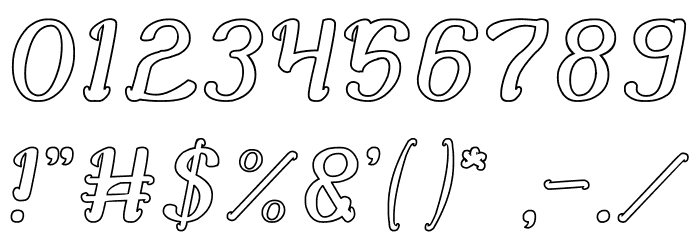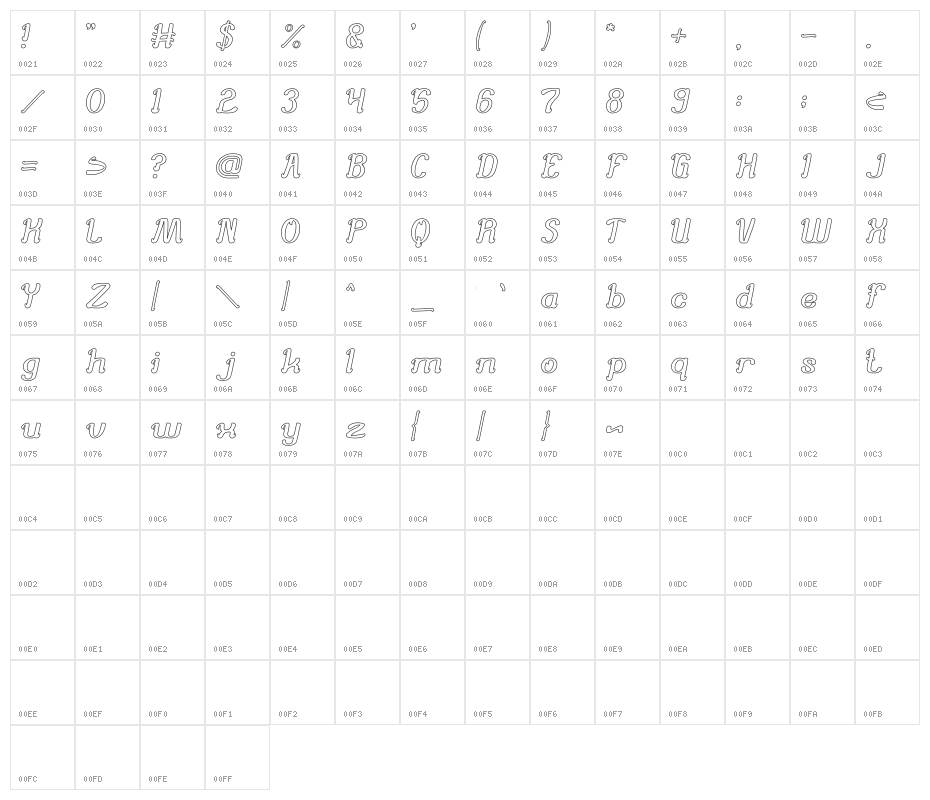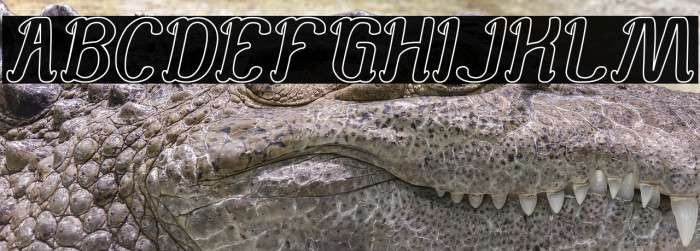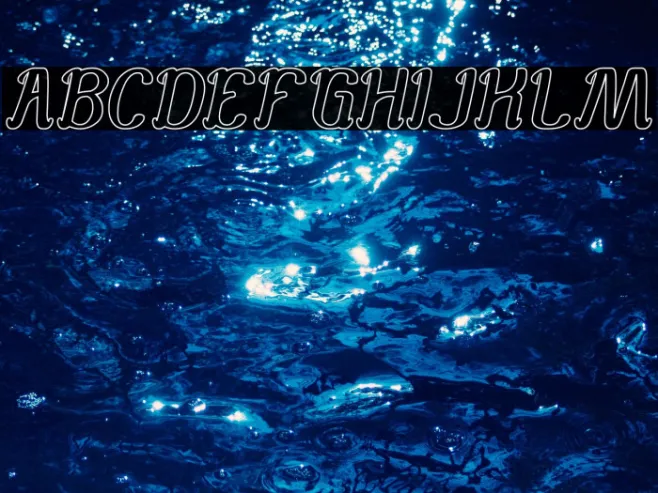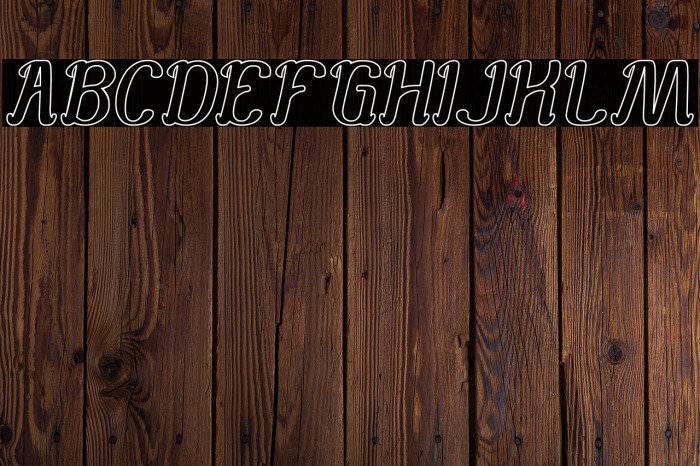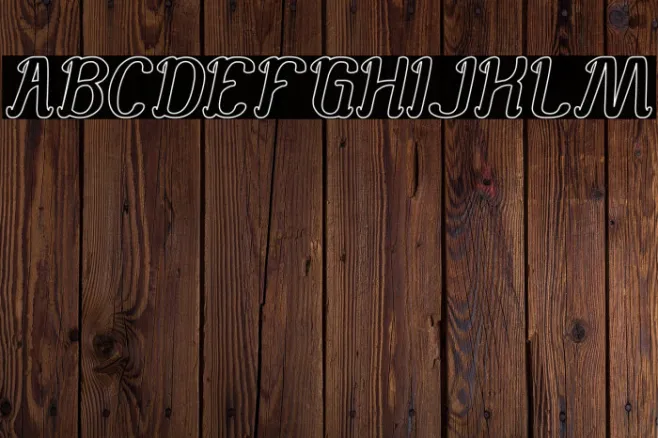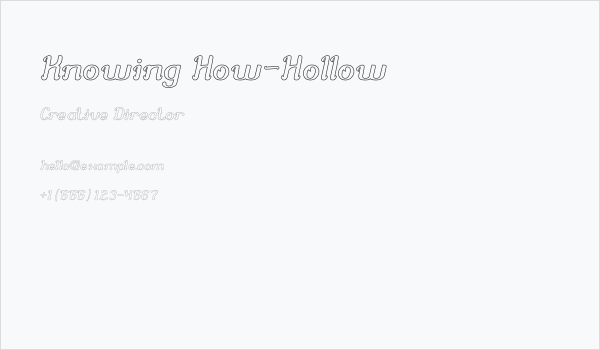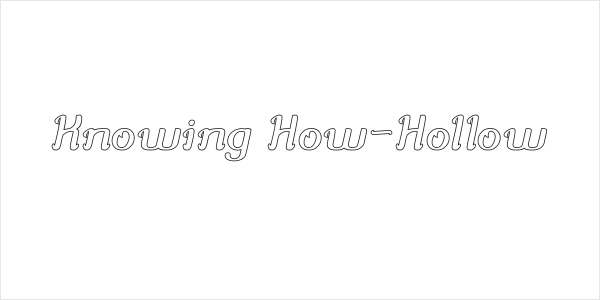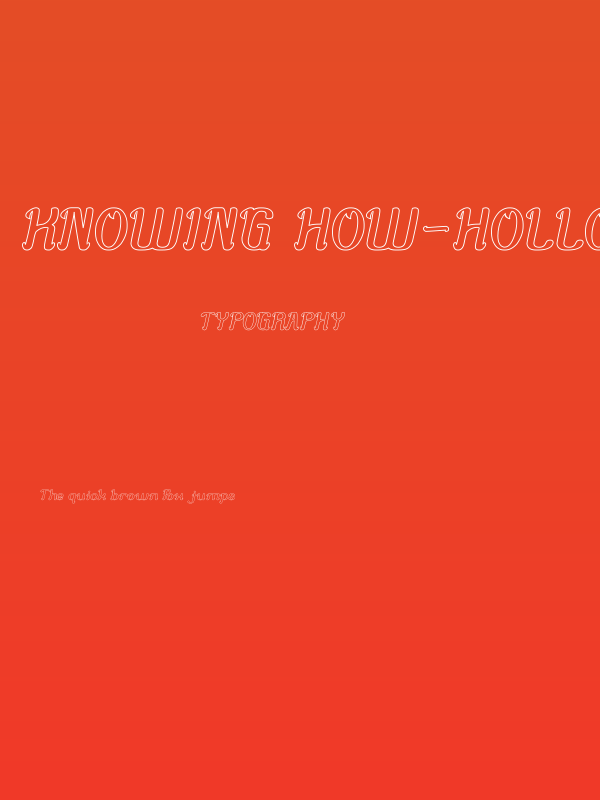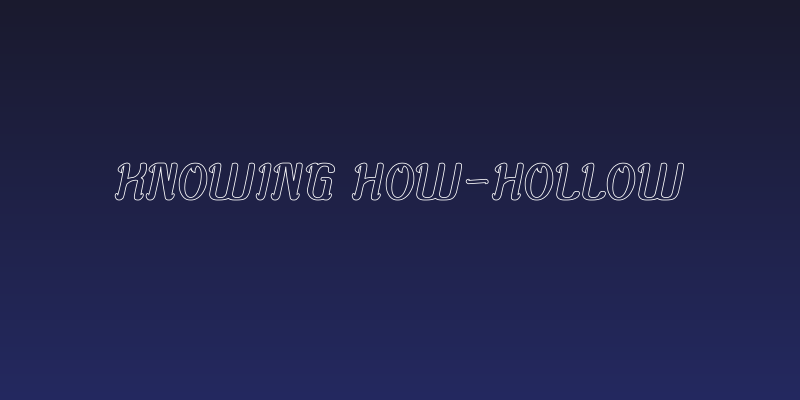
Knowing How-Hollow Font
Knowing How-Hollow Description
This font features a playful and whimsical hollow design, characterized by its outlined letters that create a sense of lightness and fun. The uppercase and lowercase letters maintain a consistent style, with smooth curves and rounded edges that enhance its approachable and friendly appearance. The numerals and special characters follow the same design principles, ensuring uniformity across all glyphs. The font's hollow nature makes it ideal for creative projects where a touch of uniqueness is desired. Its legibility remains intact despite the outline style, making it suitable for various applications.